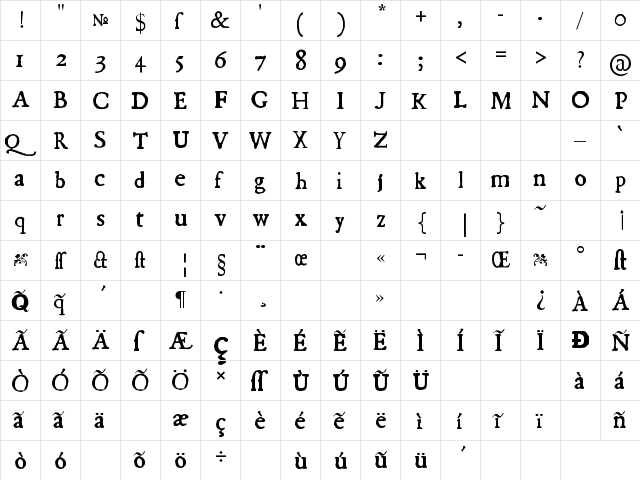
Nueva Espa?a Regular
Design Context for Nueva Espa?a Typeface
Nueva Espa?a takes a measured approach to typography — its balanced proportions and neutral character make it a reliable workhorse for both digital and print work.